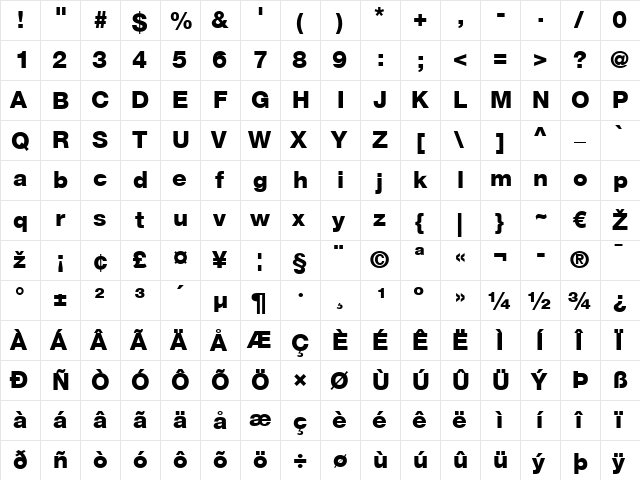
HelveticaNeue LT 65 Medium Bold
Design Context for HelveticaNeue LT 65 Medium Typeface
HelveticaNeue LT 65 Medium is a composed and adaptable typeface that performs quietly and consistently across a wide range of design contexts. The heavy weight commands attention and anchors typographic hierarchies.